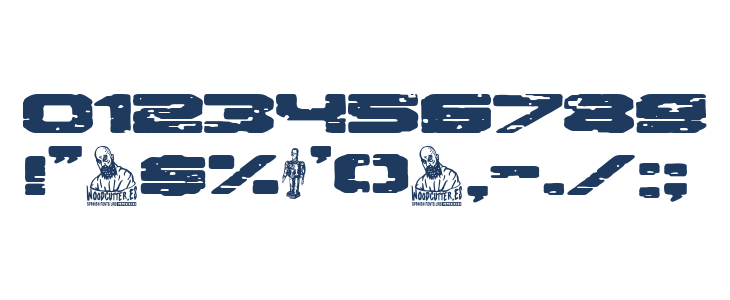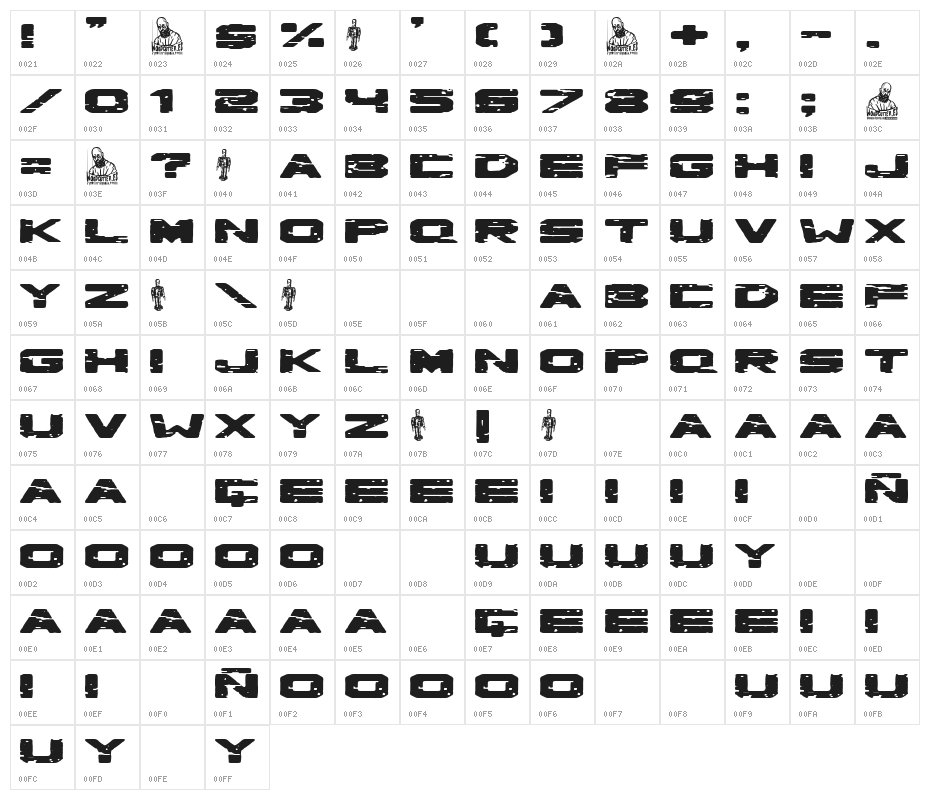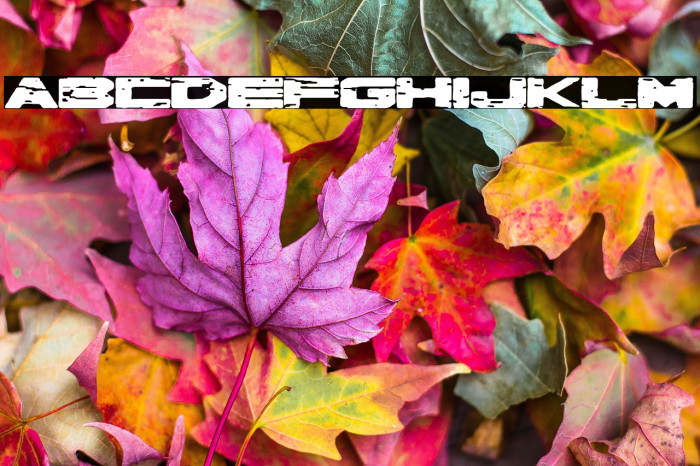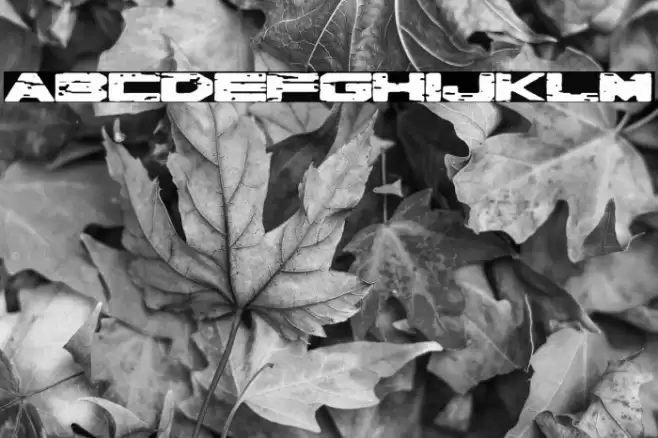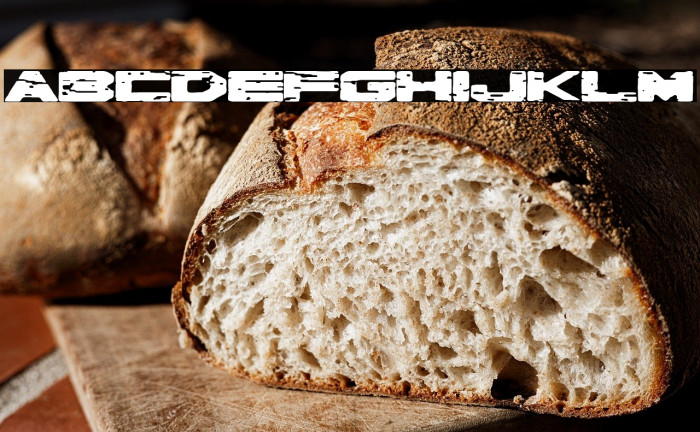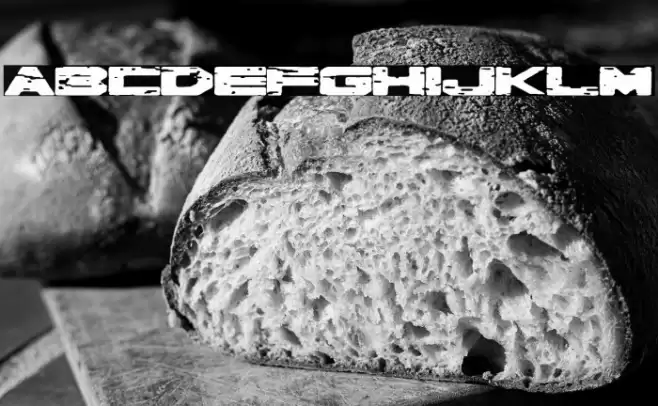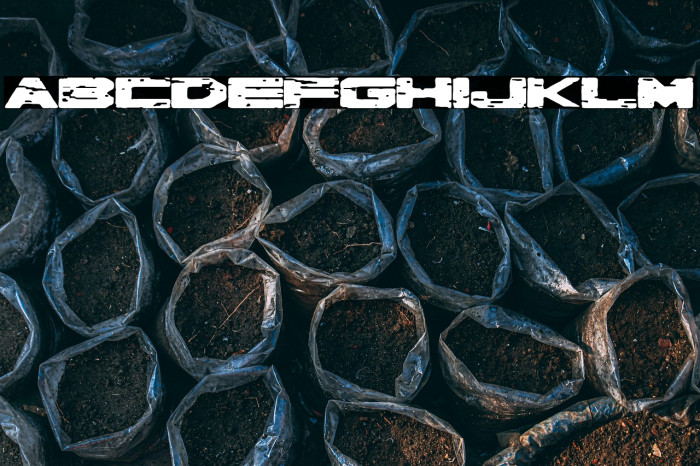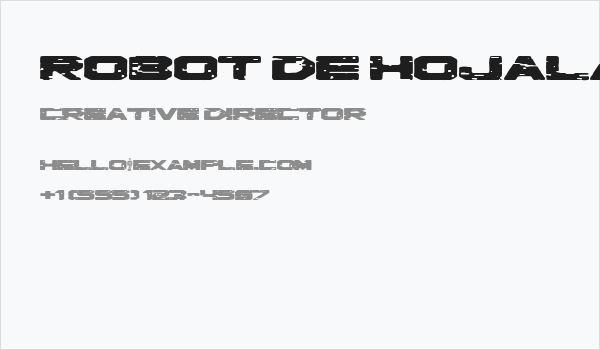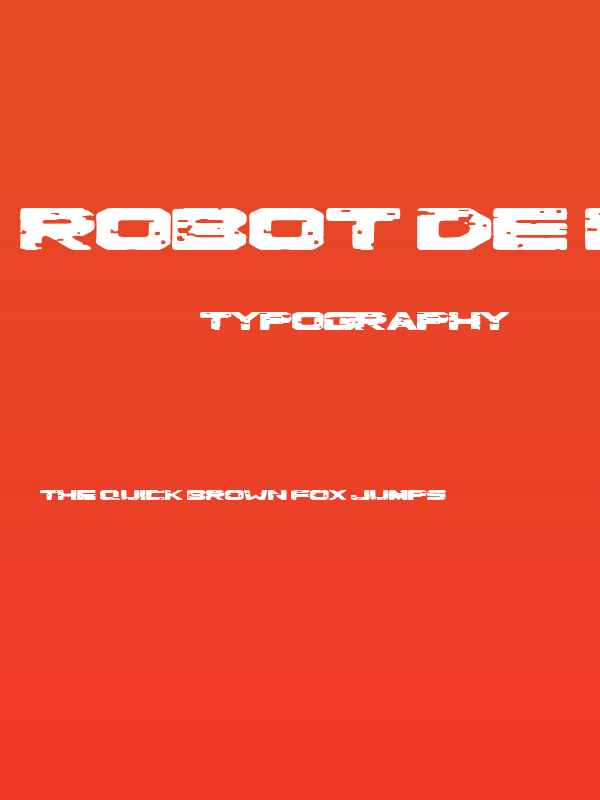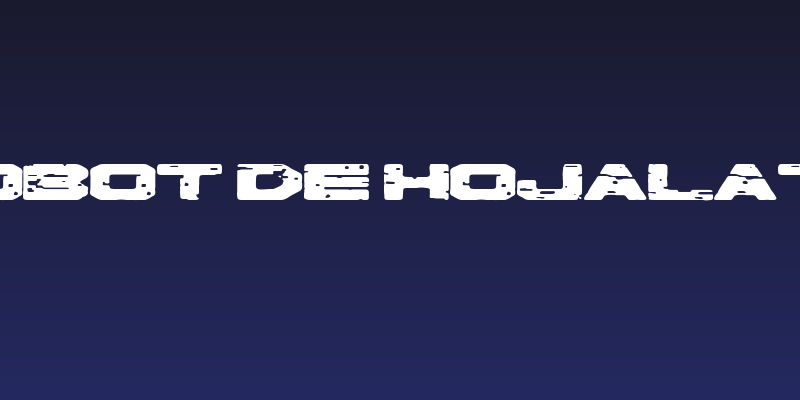
Robot de Hojalata Font
Robot de Hojalata Description
This font exhibits a rugged, industrial aesthetic with a distressed texture that gives it a worn, mechanical appearance. The characters are bold and blocky, with a uniform width that suggests a strong, sturdy design. The distressed effect adds a layer of complexity, making it appear as though the letters have been weathered or eroded over time. This style is reminiscent of machinery or metalwork, evoking a sense of strength and durability. The uppercase letters are consistent in height, and the numbers follow the same bold, distressed style. Special characters are included, maintaining the overall theme of the font.
| Overall Style | Industrial, Rugged |
| Use Case | Logos, Posters, Branding |
| Proposed Projects | Ideal for projects requiring a strong, industrial look, such as posters, logos, or branding for construction or machinery-related businesses. |